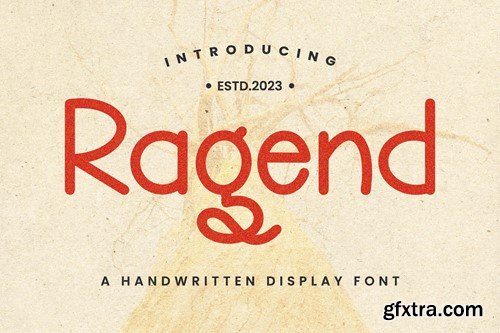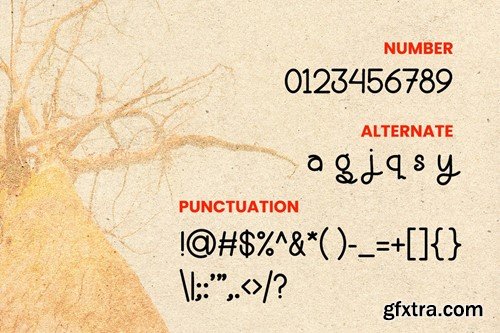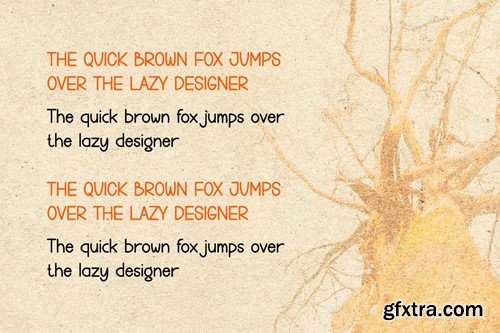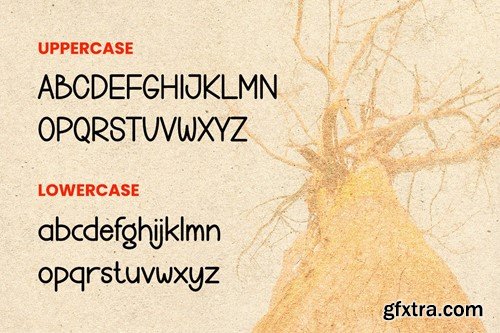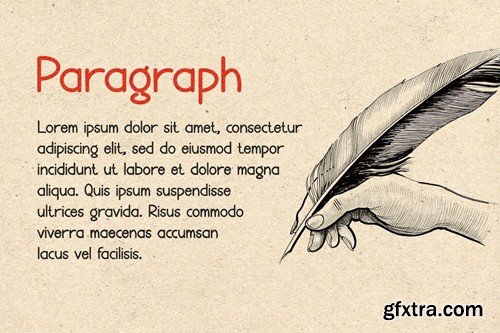
Ragend - Hanwritten Display Font
Ragend is a unique display typeface perfect for titles, large text, branding, logotypes & graphic design purposes such as posters, pamphlets, and advertisements. This letter font can be a great choice for creating amazing logos, promotional content, and marketing presentations that can bring uniqueness and freshness at its best. FEATURES TTF/OTF/WOFF Uppercase and Lowercase letters Numbering and Punctuations Alternate Support Adobe Illustrator, Adobe Photoshop, Adobe InDesign, also works on Microsoft Word For buyers, thank you for using our font. We hope our work can help you create creative ideas.